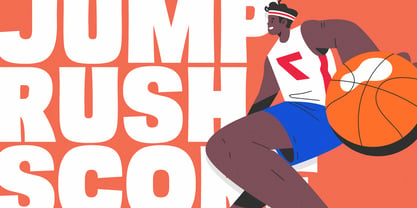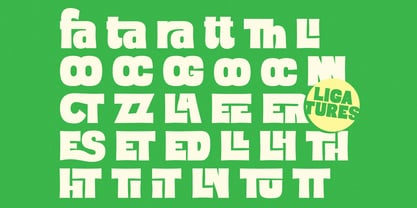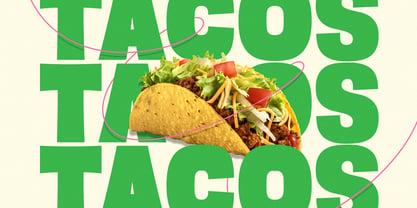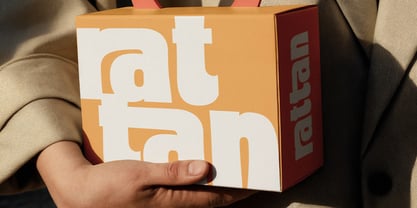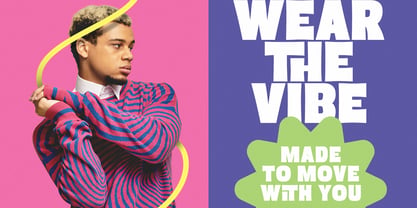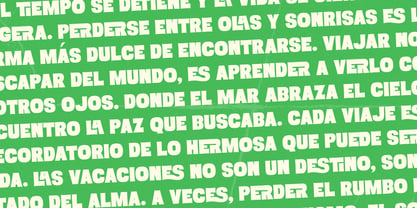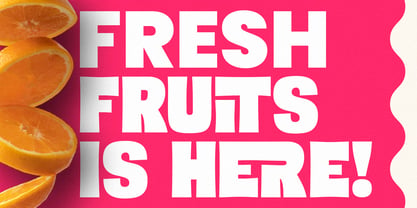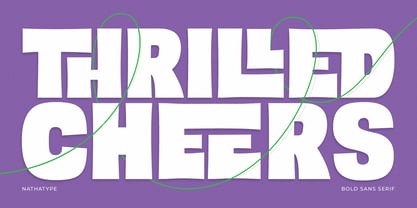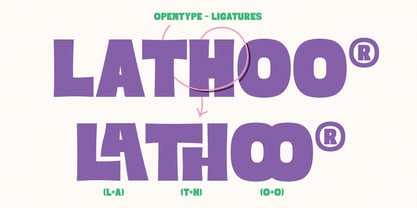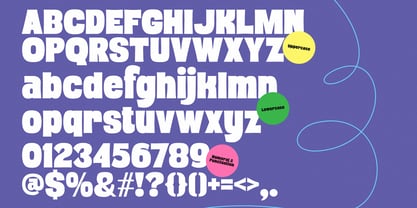
Thrilled Cheers
The Thrilled Cheers Font Family was designed by Donis Miftahudin and published by Nathatype. Thrilled Cheers contains 1 styles. More about this family
Thrilled Cheers is a powerful sans serif font designed with a very thick weight and low letter contrast, creating a commanding visual presence that stands out in any design. Crafted for designers who want maximum impact with minimal distraction, Thrilled Cheers combines solid structure, modern geometry, and bold clarity to deliver a font that is both eye-catching and highly readable. Its bold weight stands out effortlessly in large sizes, while its clean construction keeps readability high even at smaller scales. In addition, enjoy the features here. Features: Ligatures Multilingual Supports PUA Encoded Numerals and Punctuations Thrilled Cheers fits in logos, quotes, branding, posters, and many more designs. Find out more ways to use this font by taking a look at the font preview. Thanks for purchasing our fonts. Hopefully, you have a great time using our font. Feel free to contact us anytime for further information or when you have trouble with the font. Thanks a lot and happy designing.